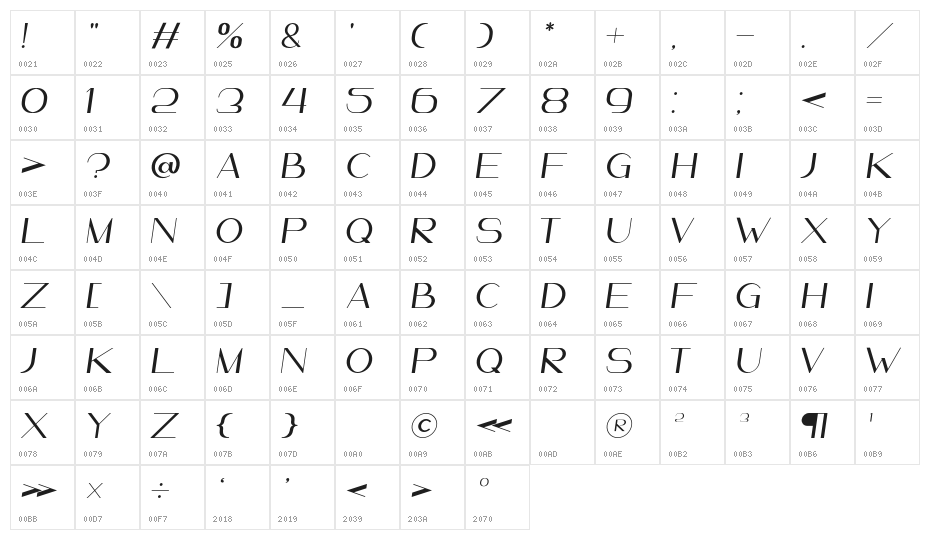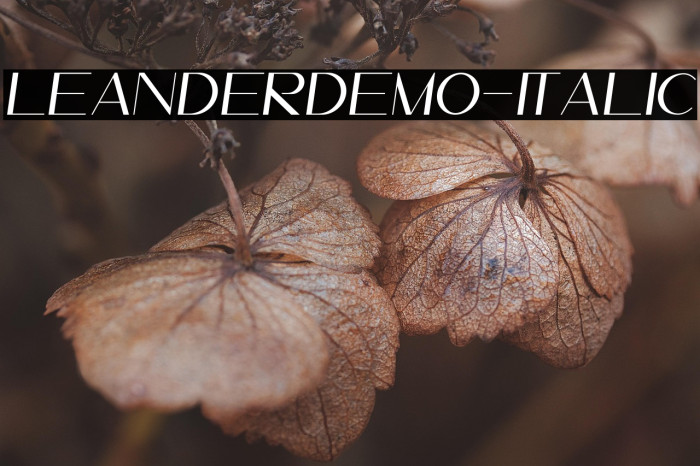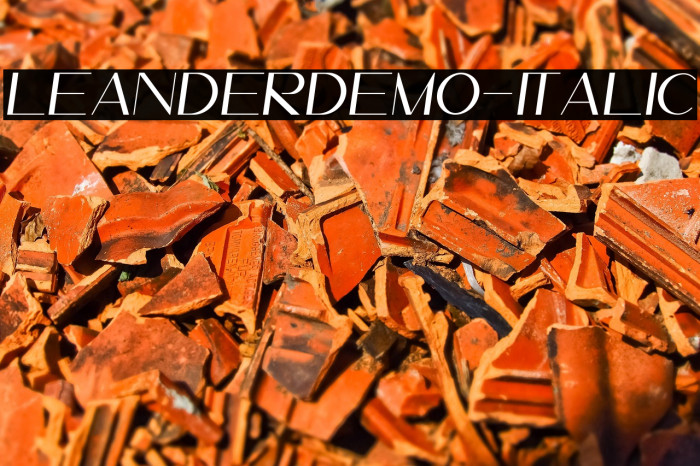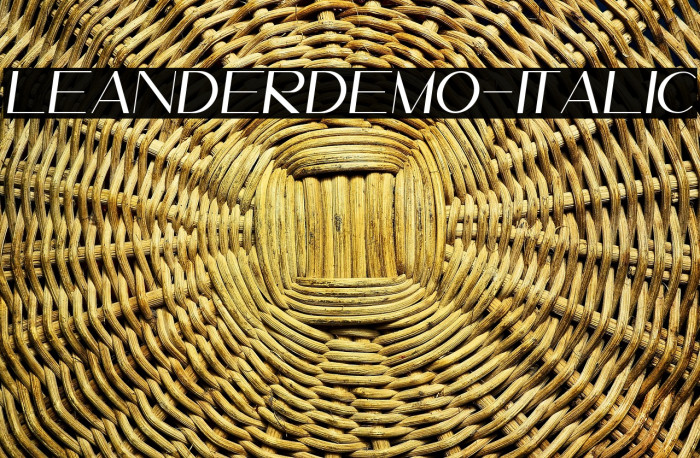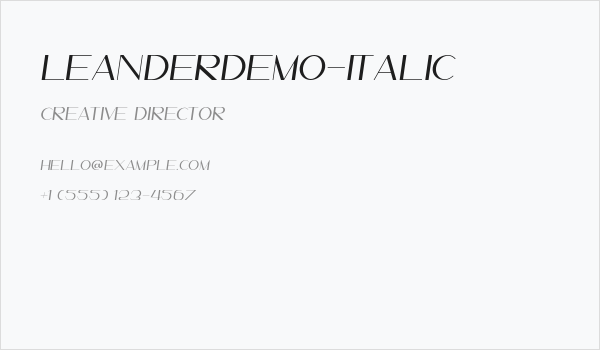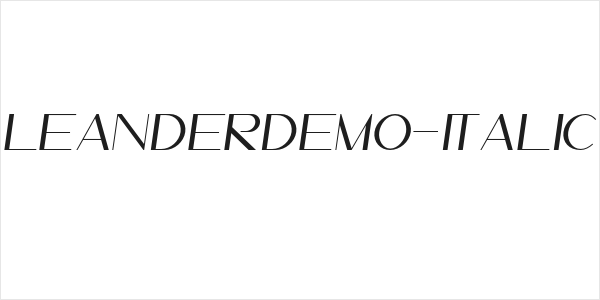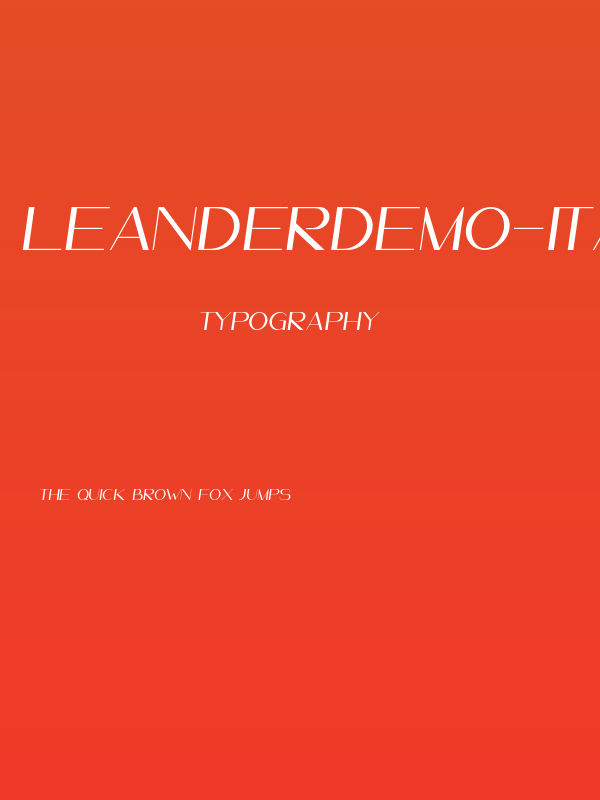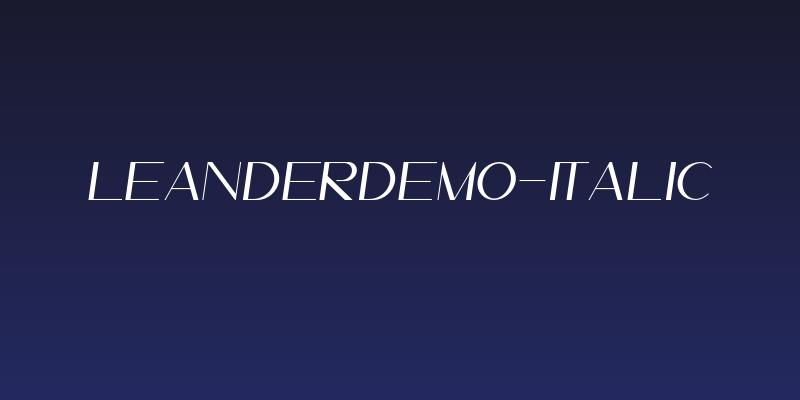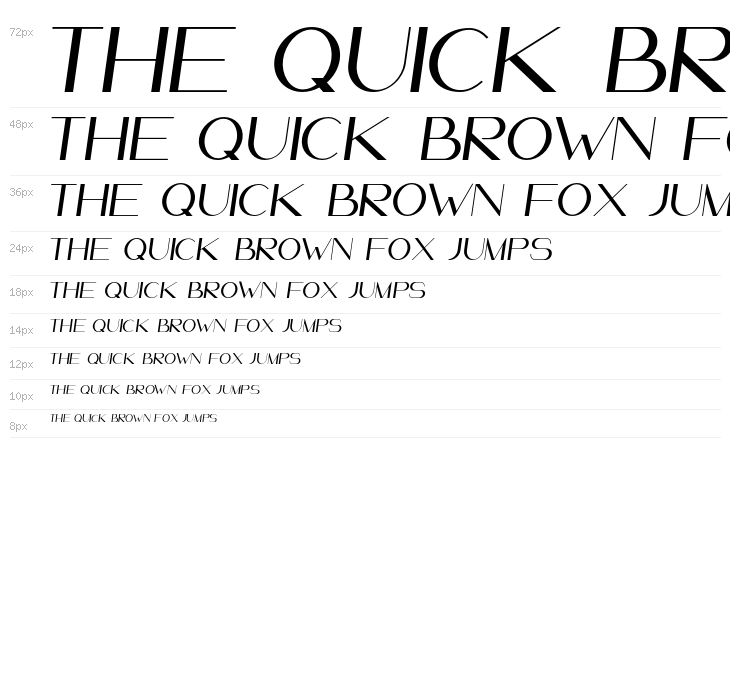
LeanderDemo-Italic Font
LeanderDemo-Italic Description
This font exhibits a sleek and modern design with a distinct italic slant, giving it a dynamic and forward-moving appearance. The characters are crafted with clean lines and a geometric structure, providing a sense of precision and clarity. The uppercase and lowercase letters maintain a consistent style, with a slight variation in stroke thickness that adds a subtle elegance. The numerals are well-proportioned, aligning seamlessly with the overall aesthetic. Special characters are included, enhancing its versatility for various applications. The font's design is both contemporary and stylish, making it suitable for a wide range of creative projects.
| Use Case | Headlines, Logos, Editorial design |
| Proposed Projects | Ideal for branding, editorial design, advertising, and digital media projects. |